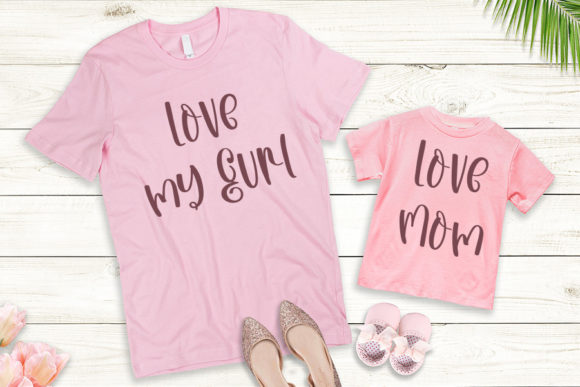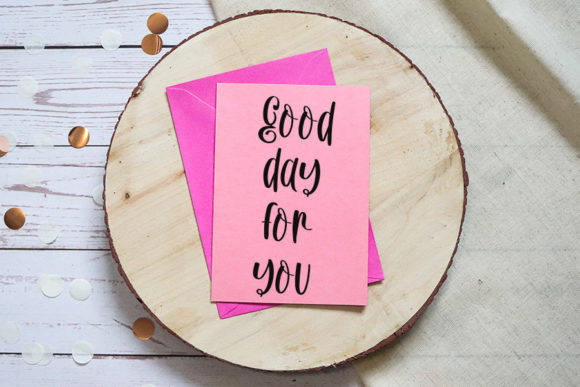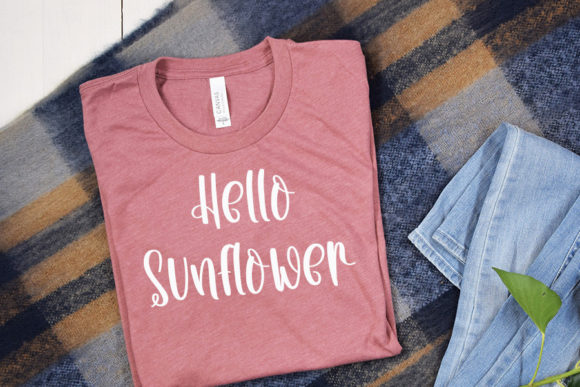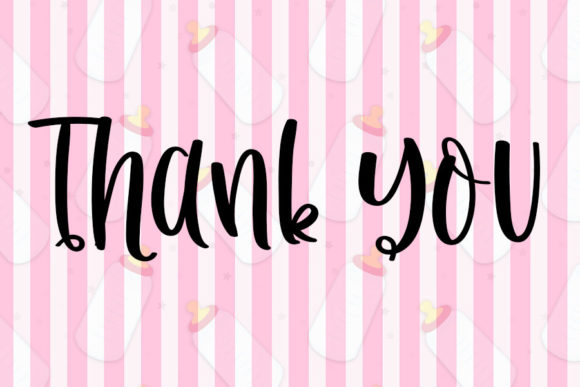
The Sweet Charm of Baby Girl Font
Do you remember the first time you saw a beautifully designed invitation or a stunning fashion brand logo? For many of us, it’s the moment that sparked our passion for design. As creatives, we’re always on the lookout for the perfect fonts to bring our ideas to life. And that’s exactly where the Baby Girl Font comes in – a beautiful and well-balanced script font that’s sure to make your projects shine.
With its smooth curves and elegant design, the Baby Girl Font is perfect for fashion branding or editorial designs. Whether you’re a seasoned designer or just starting out, this font is a valuable addition to your toolkit. Its versatility and sophistication make it an ideal choice for a wide range of projects, from wedding invitations to fashion magazines.
Baby Girl Font Key Features
- Unique Characteristics: Features a delicate, cursive script with rounded edges and floral elements, making it ideal for baby-related designs, such as nursery decor, baby clothing, and invitations
Designer Review: Baby Girl Font
Overall, I have mixed feelings about the Baby Girl Font. While it has some endearing qualities, it also has its limitations.
- The font has a soft, cursive feel that is perfect for feminine designs.
- The script-like quality of the font makes it ideal for handwritten-style typography.
- The font includes a range of ligatures and swashes, which can add a touch of elegance to your designs.
- The font may be too cursive for some designs, making it difficult to read at small sizes.
- The lack of bold weights limits its versatility, making it harder to use in bold or dramatic contexts.
- The font may not be suitable for professional or formal designs, as it has a somewhat playful and whimsical feel.
While the Baby Girl Font has its charms, I wouldn’t recommend it for every design project. It’s best suited for designs that require a soft, feminine touch, such as children’s products, nursery decor, or wedding invitations. For more formal or professional designs, I’d opt for a more traditional or modern font.
The Baby Girl Font is ideal for:
- Baby shower invitations and decorations.
- Children’s birthday party materials.
- Infant and toddler-related branding and marketing materials.
To get the most out of the Baby Girl Font:
- Pair it with pastel colors for a soft, feminine look.
- Use it in combination with cute illustrations and graphics.
Alternatives to “Baby Girl Font” for Designers
Great Vibes is a beautiful, elegant script font perfect for wedding invitations, baby shower invitations, and other feminine designs. It has a more mature and sophisticated look compared to Baby Girl Font, making it ideal for designers who want to add a touch of luxury to their designs.
Comparison: Great Vibes is more versatile and can be used for a wide range of designs, whereas Baby Girl Font is more suited for baby-themed designs. Great Vibes also has a more refined and polished look, making it a great alternative for designers who want to add a touch of sophistication to their designs.
Lovelo
Lovelo is a modern, playful script font that is perfect for baby-themed designs, such as nursery decor, baby blankets, and onesies. It has a fun and bubbly personality that is similar to Baby Girl Font, but with a more modern twist.
Comparison: Lovelo is more modern and playful compared to Baby Girl Font, making it ideal for designers who want to add a touch of fun and whimsy to their designs. Lovelo also has a more open and airy feel, making it perfect for designs that require a lot of text.
Carolyna Pro is a luxurious, elegant script font that is perfect for high-end designs, such as wedding invitations, luxury brands, and premium packaging. It has a sophisticated and refined look that is similar to Baby Girl Font, but with a more polished and refined feel.